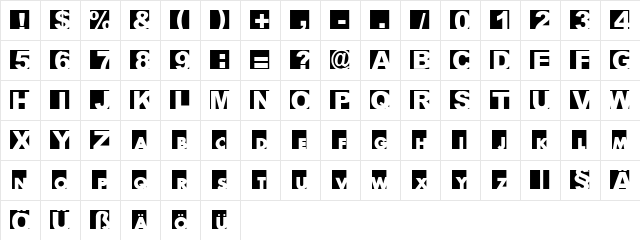
BIGARIAL UltraBold
Design Context for BIGARIAL Typeface
BIGARIAL takes a measured approach to typography — its balanced proportions and neutral character make it a reliable workhorse for both digital and print work. The heavy weight commands attention and anchors typographic hierarchies.